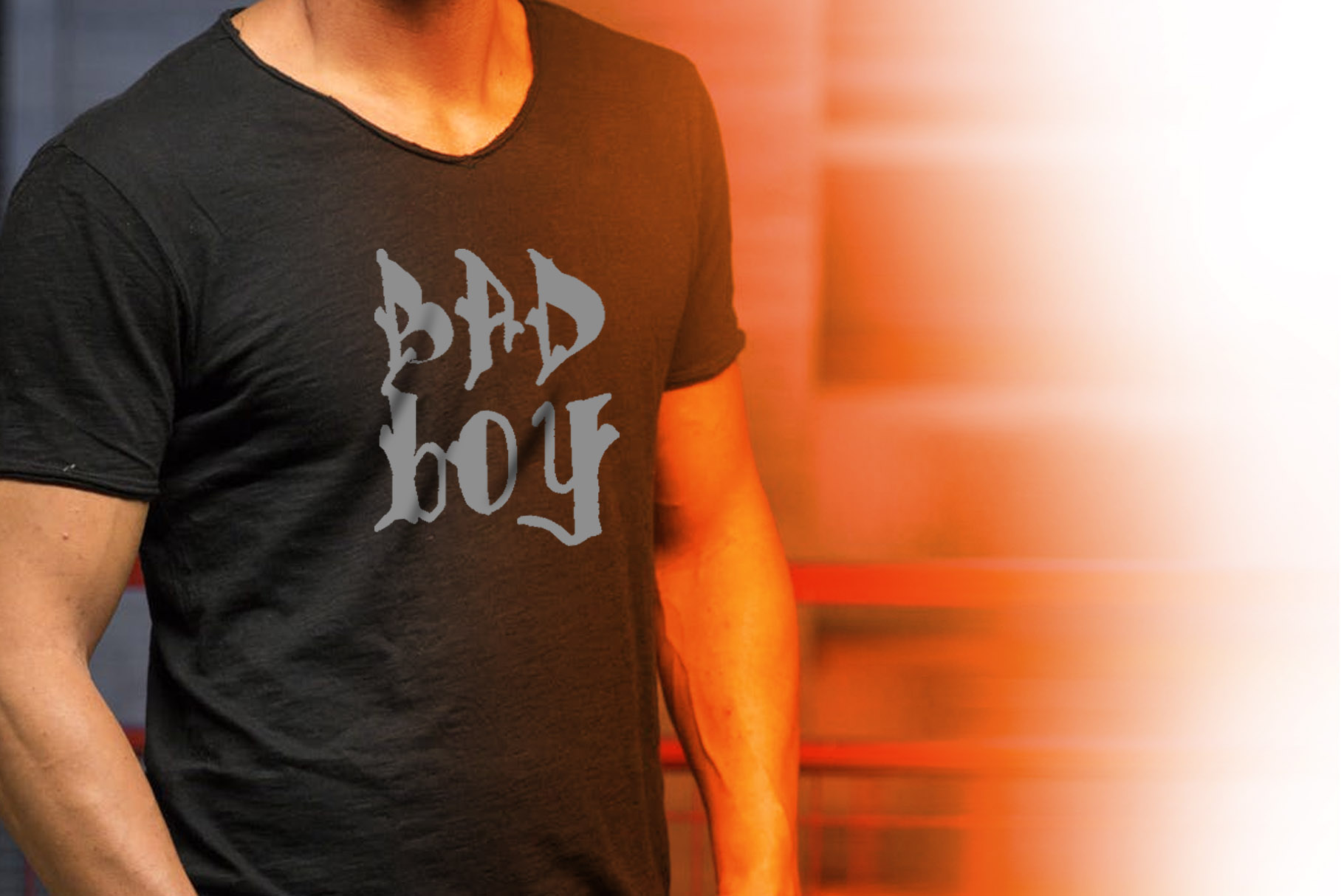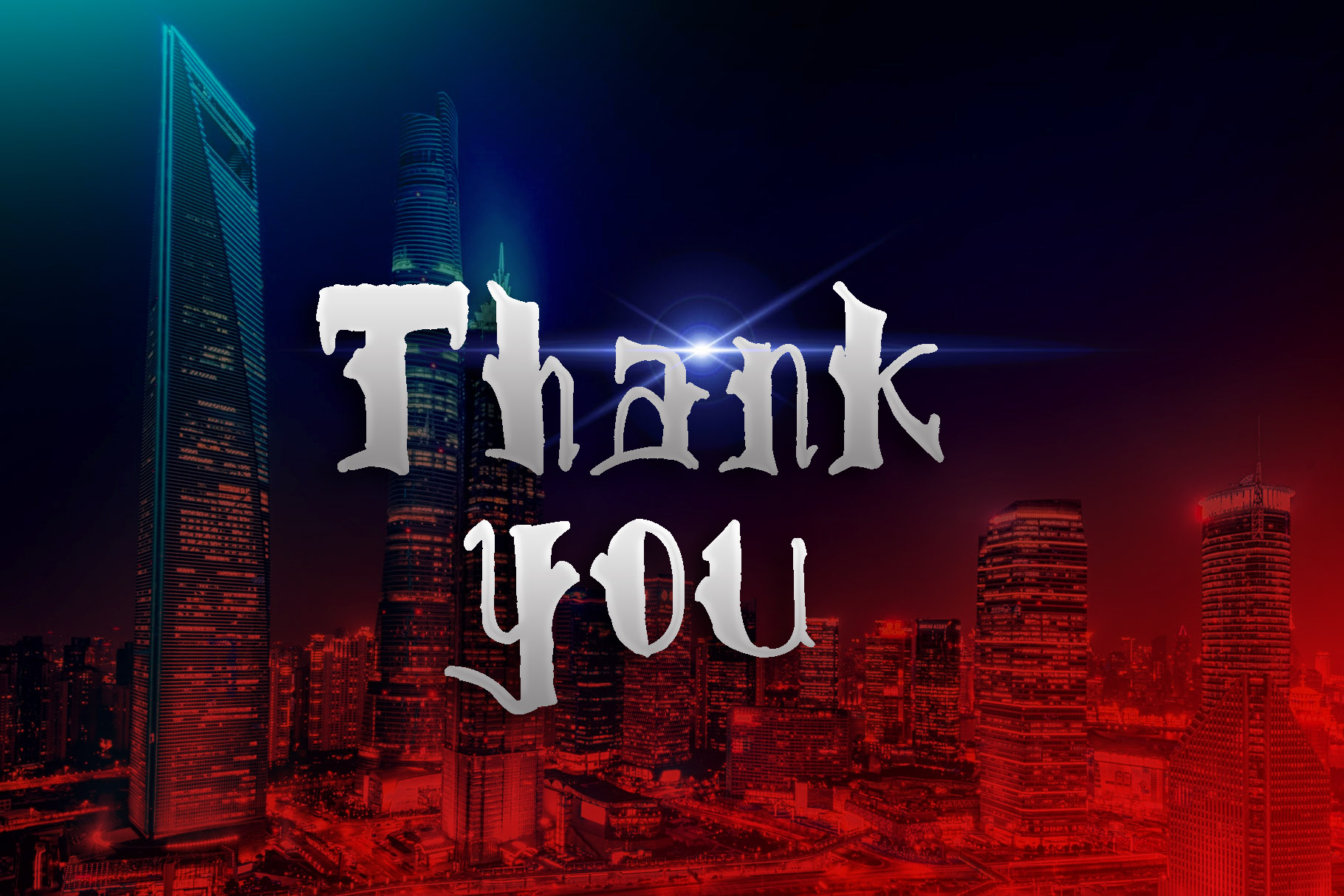
Introduction to Kareng Font
Have you ever stumbled upon a font that completely transforms your design project? For me, that moment came when I discovered the Kareng Font. Its bold, modern style and gothic twist immediately caught my attention, and I couldn’t wait to incorporate it into my next creative project. As a designer, I’m always on the lookout for high-quality design resources that can elevate my work and help me stand out from the crowd.
Kareng Font is a fantastic addition to any designer’s toolkit, offering a fresh and modern aesthetic that’s perfect for alternative styled projects. Whether you’re working on a bold headline or a striking display, this font is sure to make a statement. Plus, with a transparent background, it’s incredibly versatile and easy to use. And the best part? It’s available for free download, making it a valuable resource for designers on a budget.
As a design resource, Kareng Font is a game-changer. Its unique blend of modern and gothic elements makes it an ideal choice for designers looking to create something truly unique and eye-catching. So why settle for a generic font when you can make a statement with Kareng Font? Let’s dive in and explore the world of this amazing font, and discover why it’s a must-have for any creative project.
Key Features of Kareng Font
- High-quality design resource suitable for creative projects, offering a unique and modern aesthetic.
- Features a clear and legible design, with a font size ranging from 12 to 72 points, suitable for a variety of applications.
- Perfect for use in digital design projects, including logos, graphics, and web content.
Honest Review: Kareng Font
As a designer, I’m always on the lookout for high-quality design resources to elevate my creative projects. The Kareng Font has been a recent addition to my design arsenal, and I must say it’s been a game-changer.
One of the things I love about the Kareng Font is its versatility. It comes in a variety of styles and weights, making it perfect for any design project. Whether I’m working on a logo, brochure, or social media graphic, the Kareng Font has been a reliable choice. ✨
Another feature that sets the Kareng Font apart is its transparent background. This makes it incredibly easy to customize and integrate into any design. I’ve found that it’s a great resource for designers who need a font that can be easily layered over images or other design elements.
Here are some of the key features that make the Kareng Font a valuable design resource:
- High-quality design with a variety of styles and weights
Overall, I’m impressed with the Kareng Font and would highly recommend it to designers looking for a reliable and versatile design resource. With its high-quality design, transparent background, and free download, it’s a great addition to any design library.
Introduction to Kareng Font
Kareng Font is a high-quality design resource perfect for creative projects. It features a unique style and is available for free download.
Tips for Getting the Most Out of Kareng Font
To get the most out of Kareng Font, consider the following tips:
- Use Kareng Font with a transparent background for a clean and minimalist look.
- Combine Kareng Font with other design elements to create a cohesive design.
Common Use Cases for Kareng Font
Kareng Font is commonly used in: